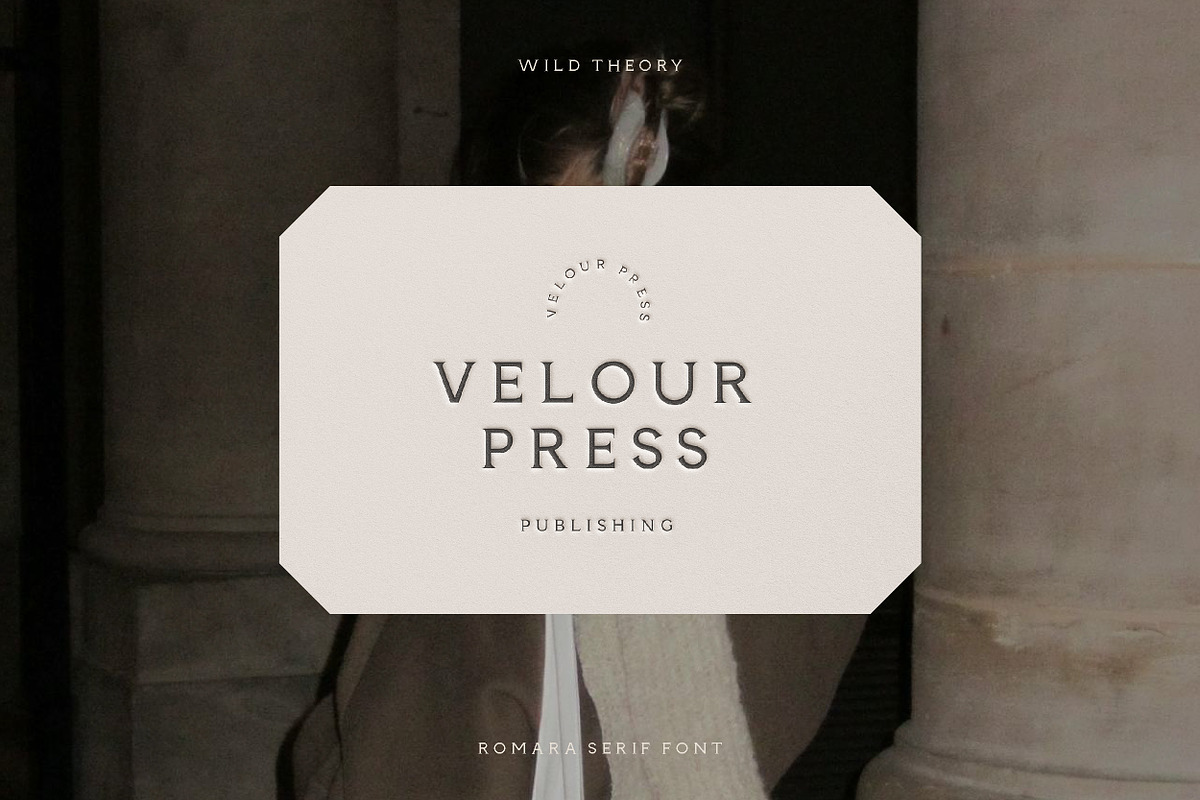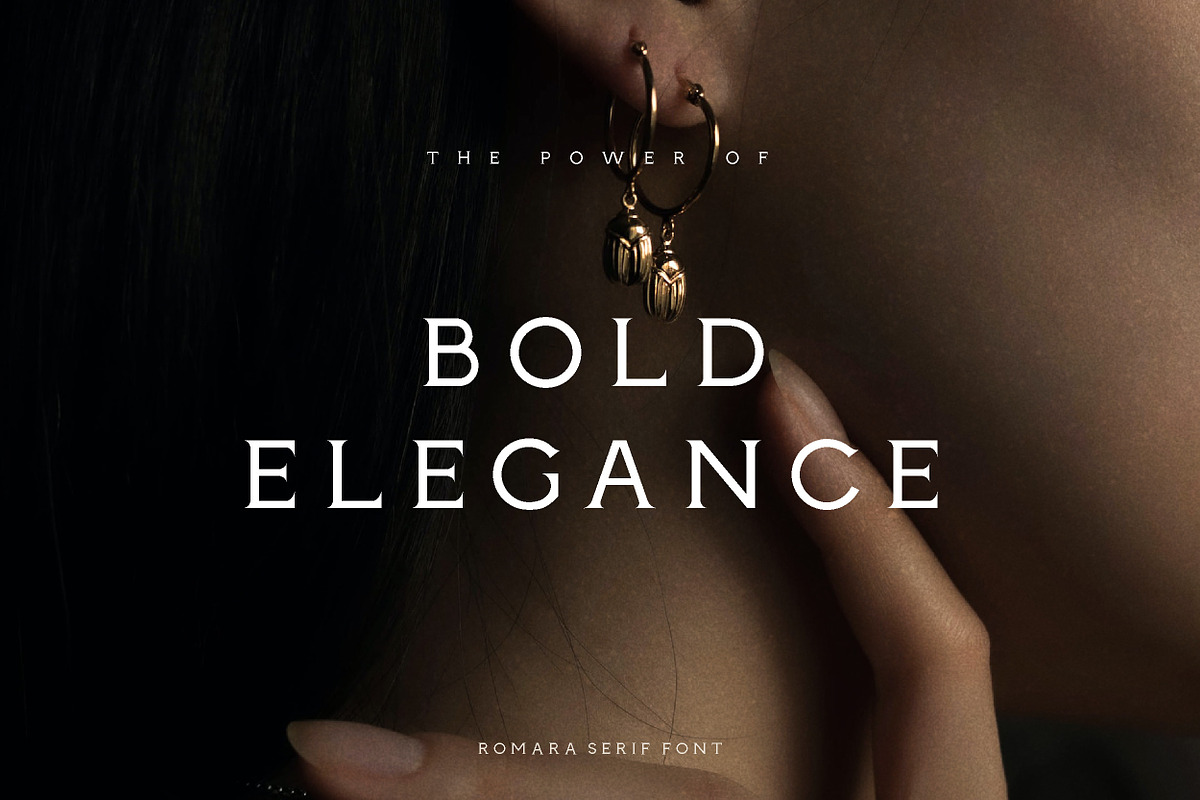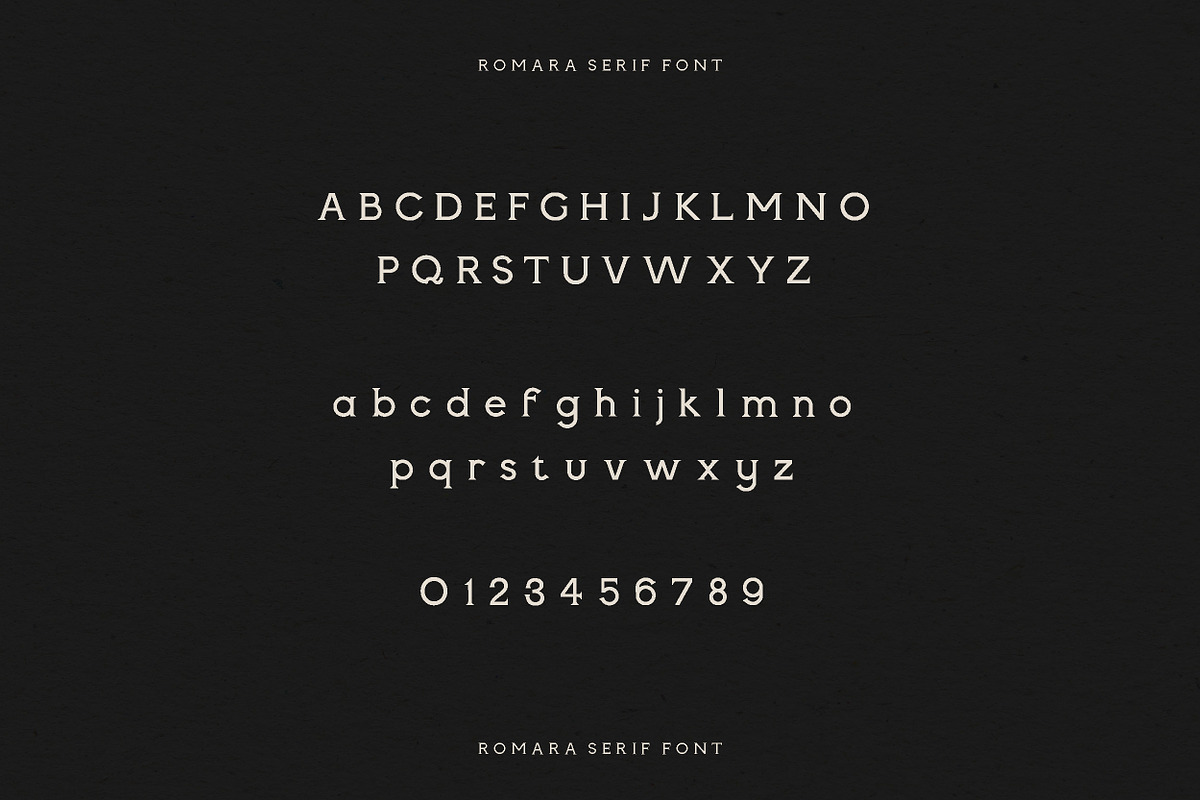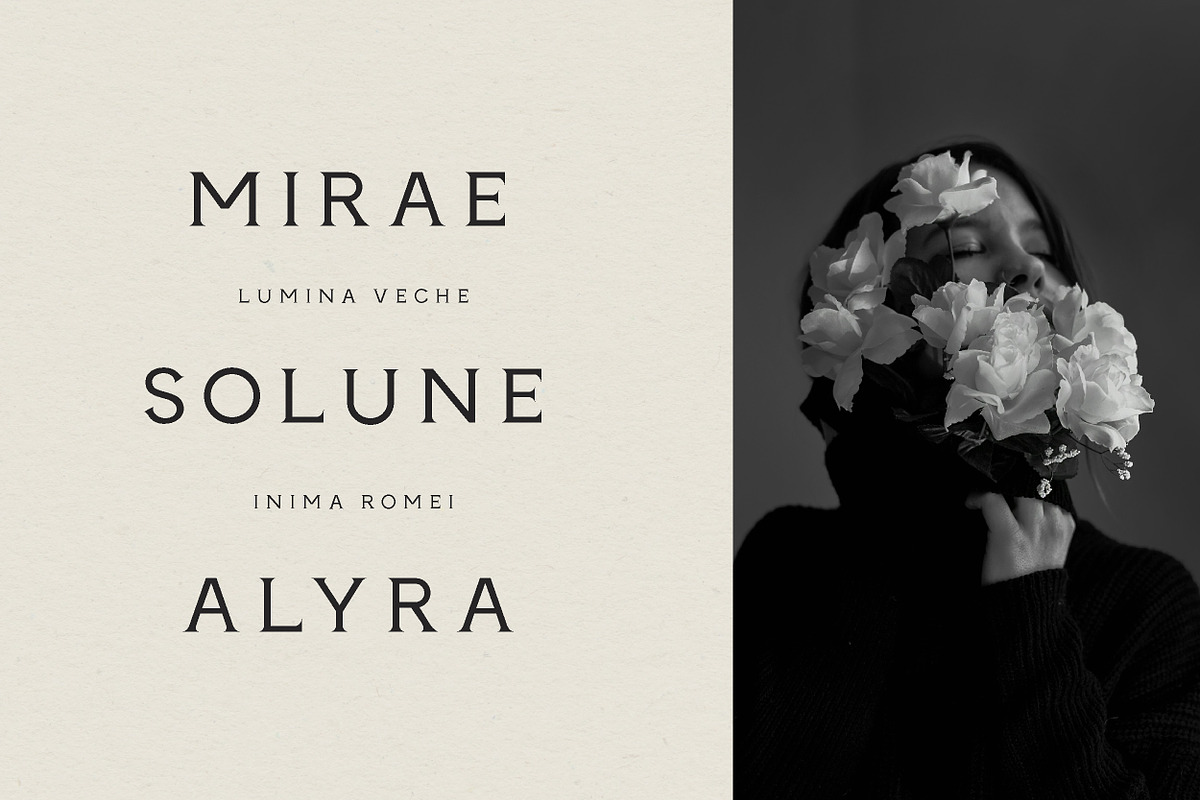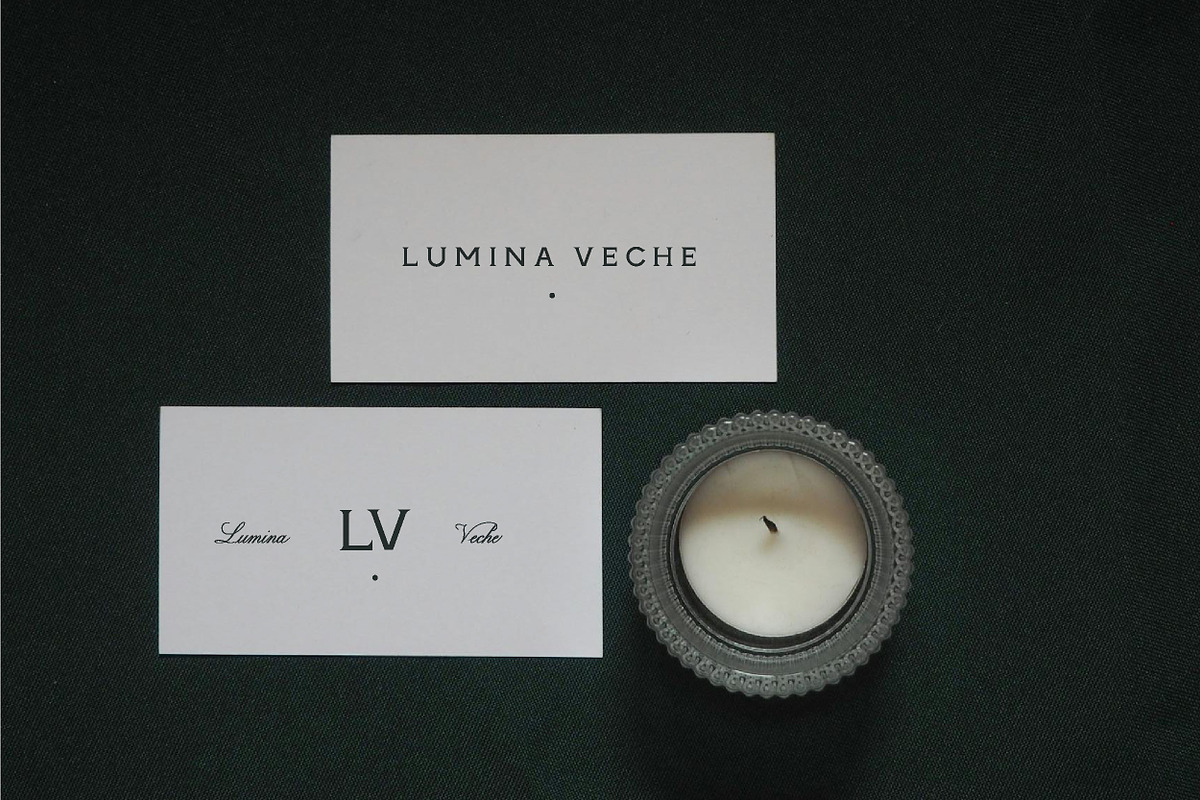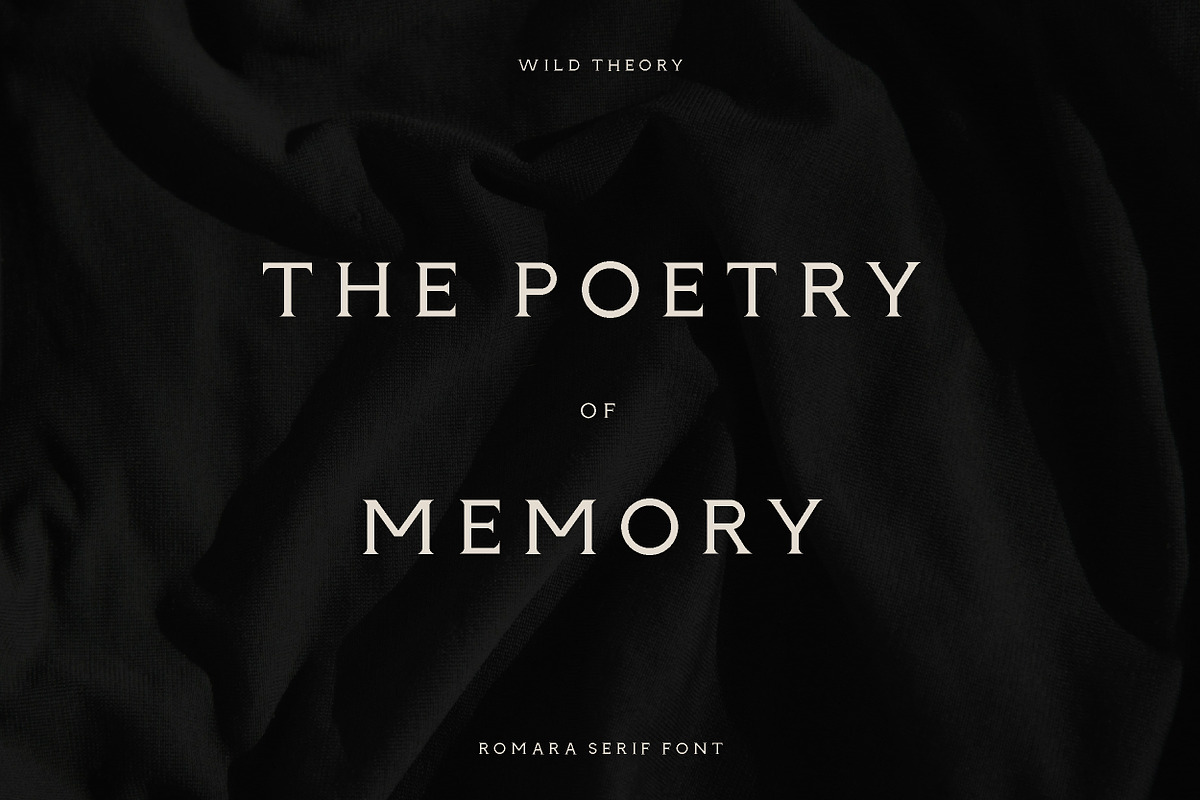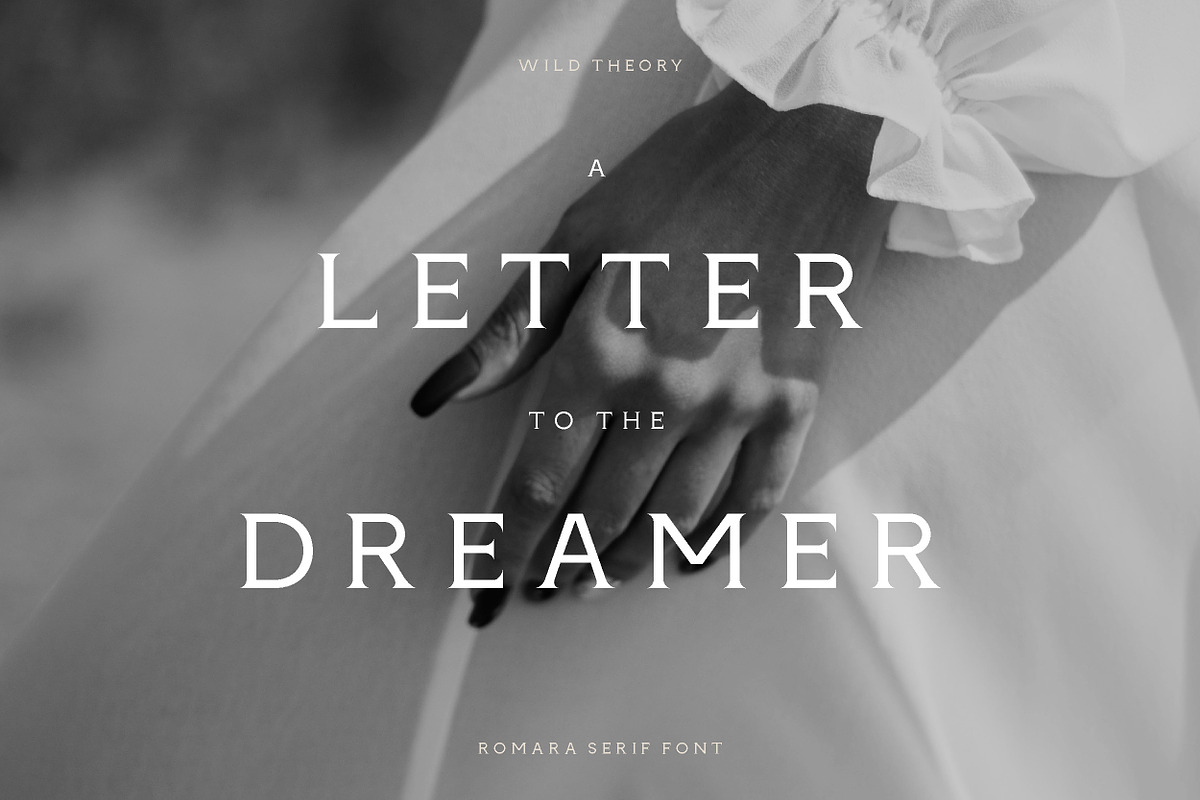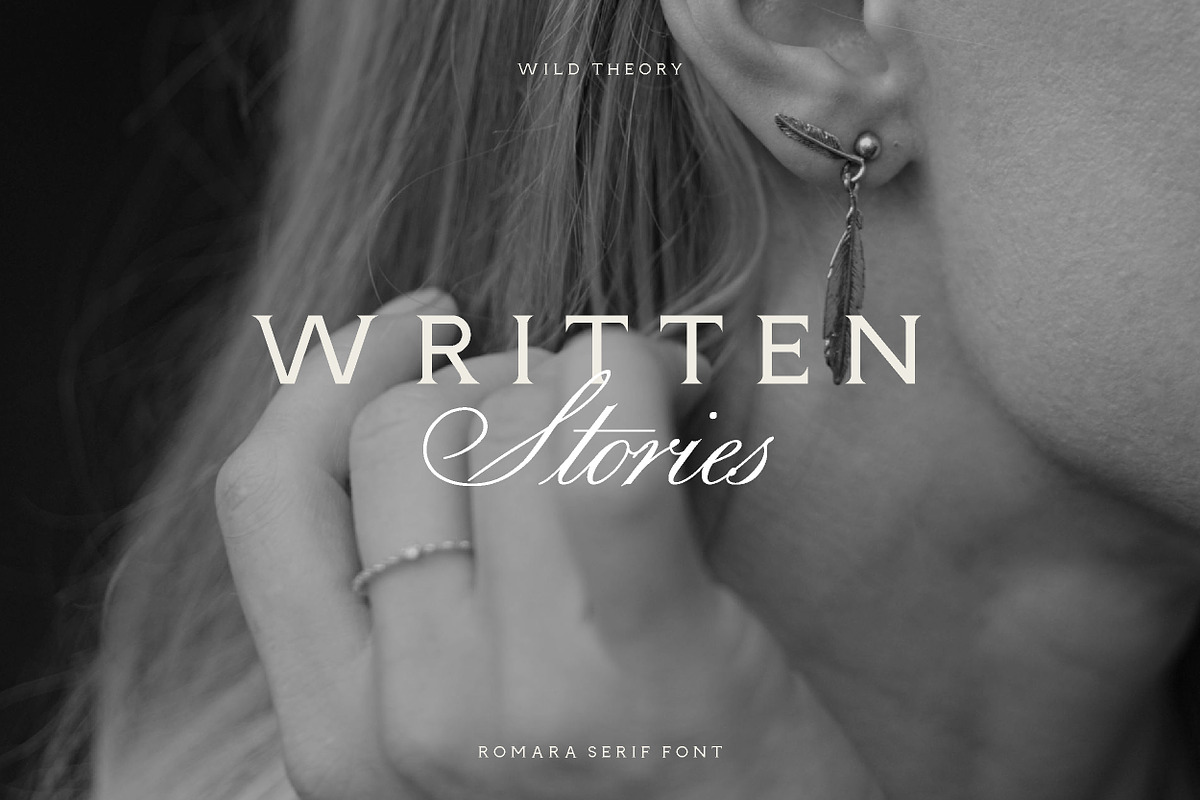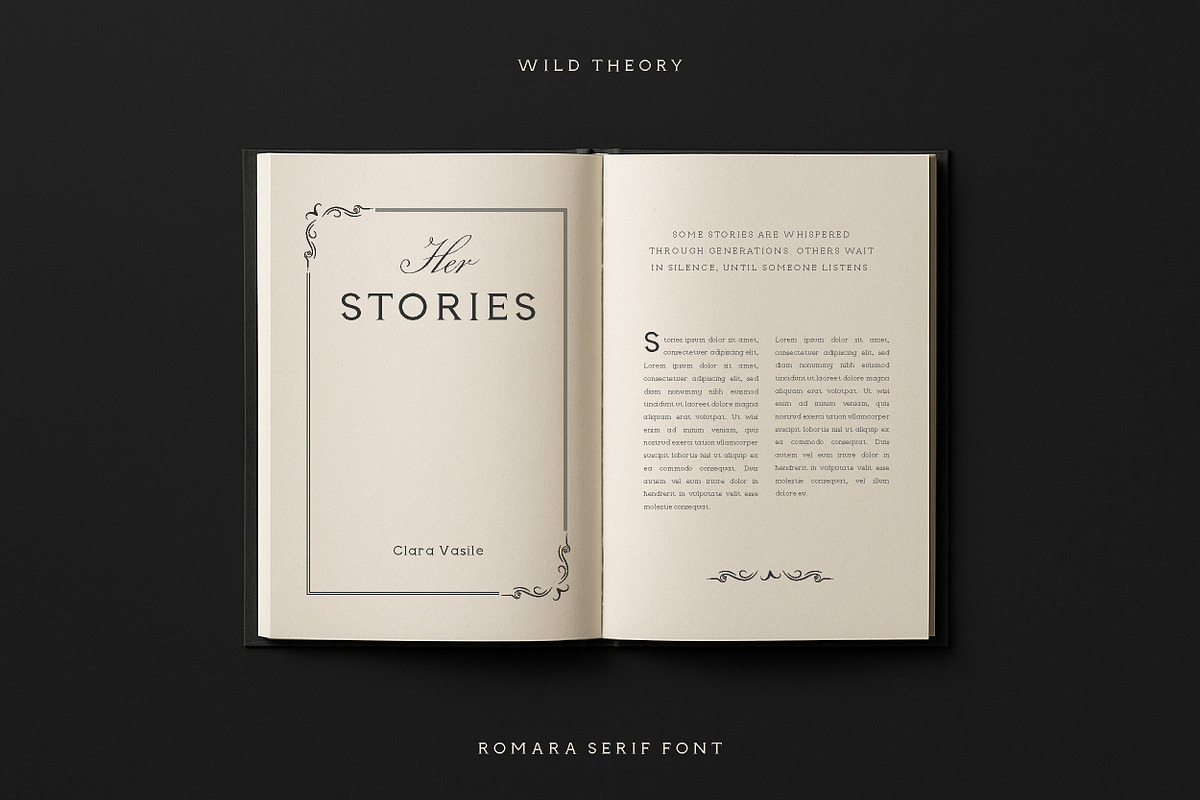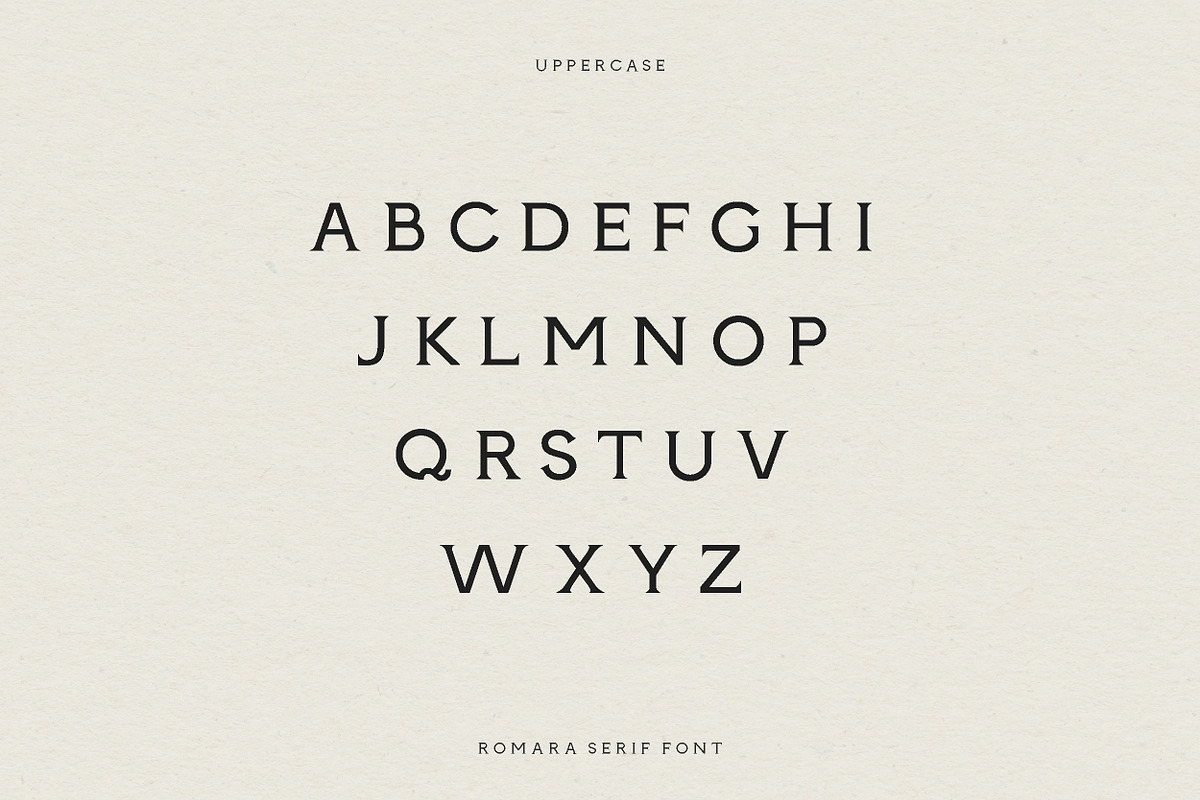
Romara | Elegant & Modern Serif Font
Romara is a refined and versatile modern serif font inspired by vintage editorial typography and timeless romance. Designed for branding, logo design, book covers, and luxury packaging, Romara brings a perfect balance of classic elegance and contemporary style to your creative work.
Why Choose Romara? Crafted with clean curves, high contrast, and subtle flair, Romara’s letterforms evoke the sophistication of Roman architecture with a soft feminine twist. Whether you're creating a minimal logo, designing editorial layouts, or elevating a wedding invitation, this font will add depth, story, and style to your project.
- Elegant brand identity design
- Logo design for fashion or beauty
- High-end editorial layouts
- Wedding stationery and invitations
- Social media templates
- Book covers, poetry, and personal storytelling